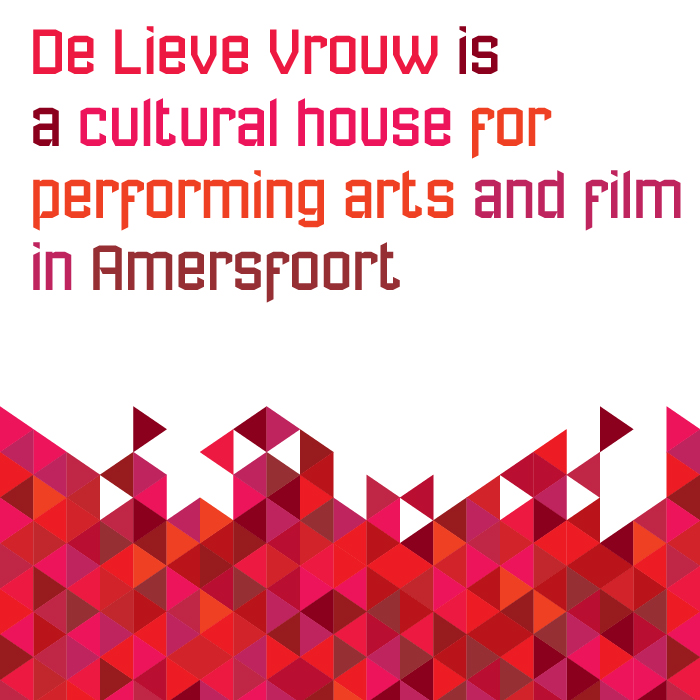
Congratulations! FontStruct Staff have deemed your FontStruction worthy of special mention. “DeLieveVrouw” is now a Top Pick.
Nice and modern sans serif letters with good spacing. The text it generates flows naturally. There are two issues to consider. One: placing the "f" down to the descender level doesn't really work with this particular font and it's in direct conflict with the ligatures (ff, fi, fl, ffi, etc.), as they are at normal level. Two: the "t" only works at the end of words. In the middle of words, it looks strange, out of place (especially in words with "tt"). Good work, otherwise and nice demo picture. 10/10
DeLieveVrouwby Thijs Mertens (thm_go)